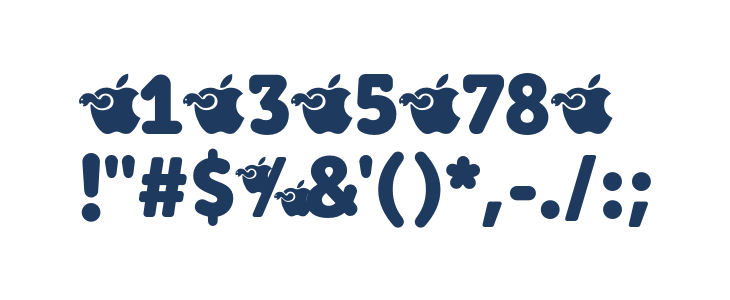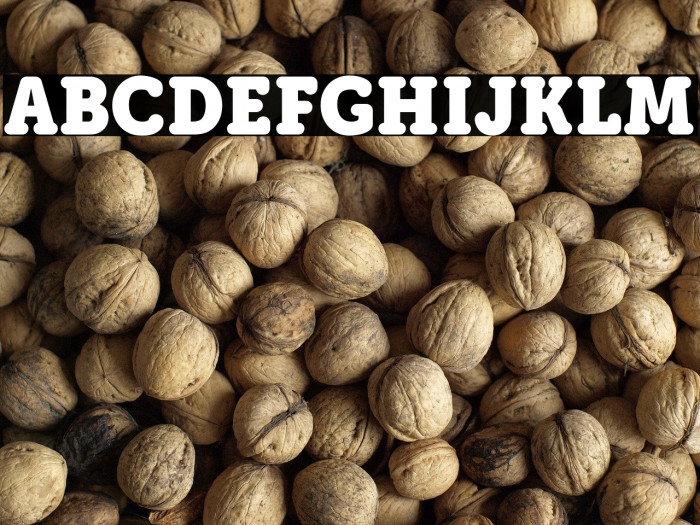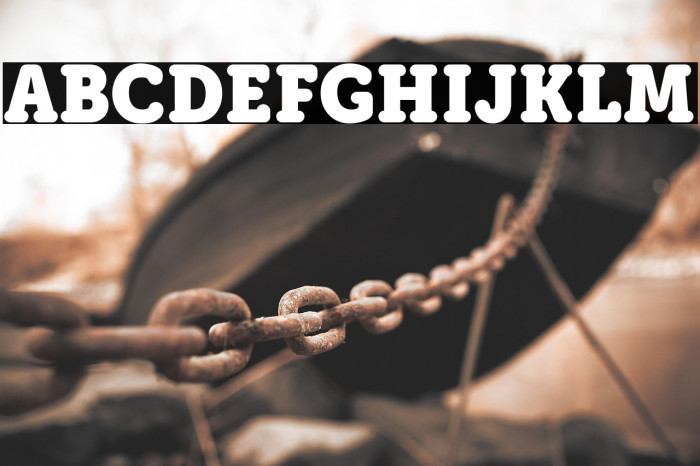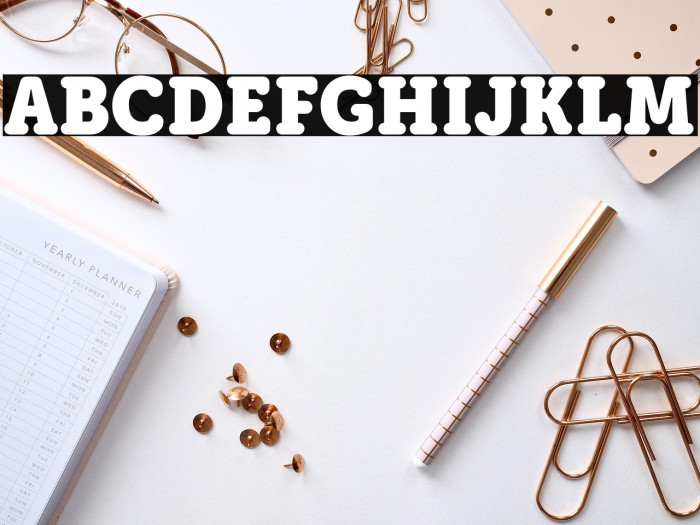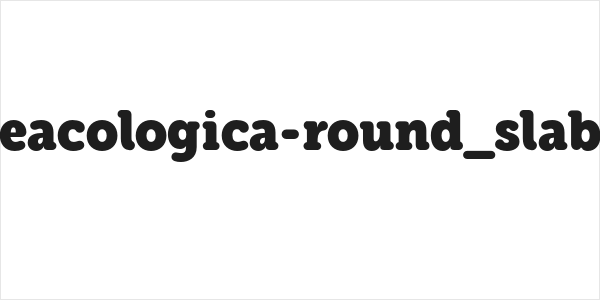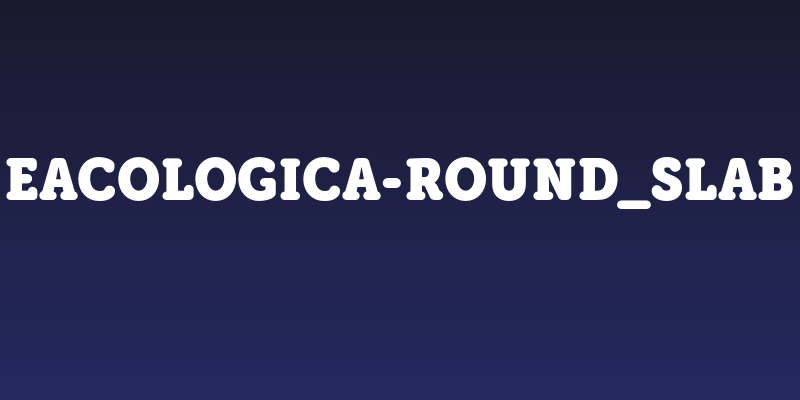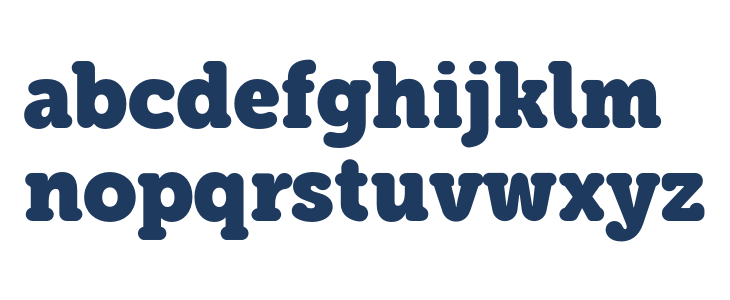
eacologica-round_slab Font
eacologica-round_slab Description
This font features a bold and rounded slab serif style, characterized by thick, uniform strokes and soft, rounded edges. The uppercase and lowercase letters maintain a consistent weight, providing a strong and cohesive appearance. The numerals and special characters are designed with the same boldness, ensuring readability and impact. The overall design is playful yet robust, making it suitable for a variety of creative applications. Its rounded serifs add a touch of friendliness, while the bold weight ensures it stands out in any design.
| Proposed Projects | Ideal for branding, headlines, posters, and packaging where a strong and friendly presence is desired. |